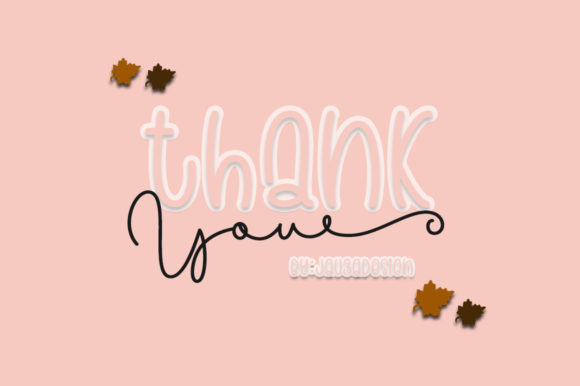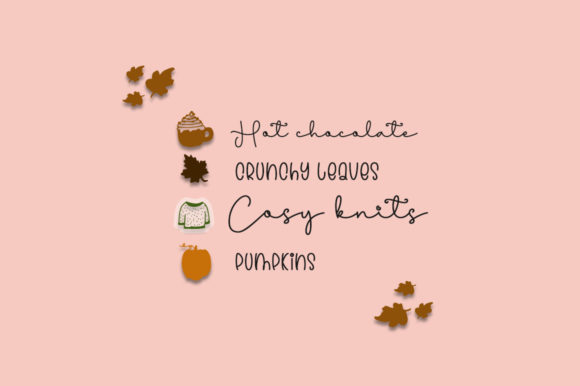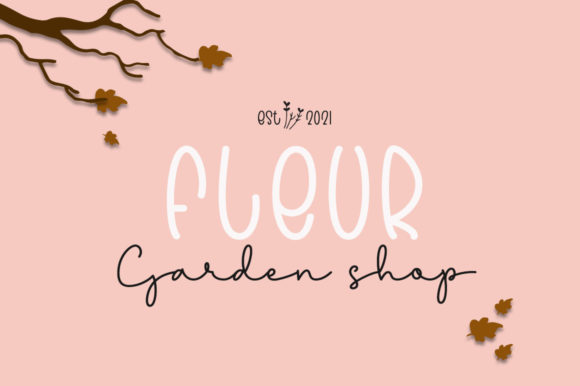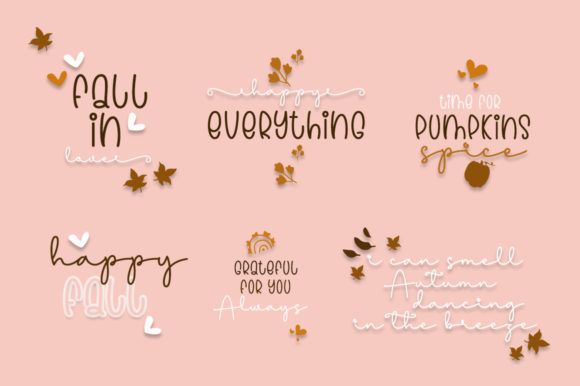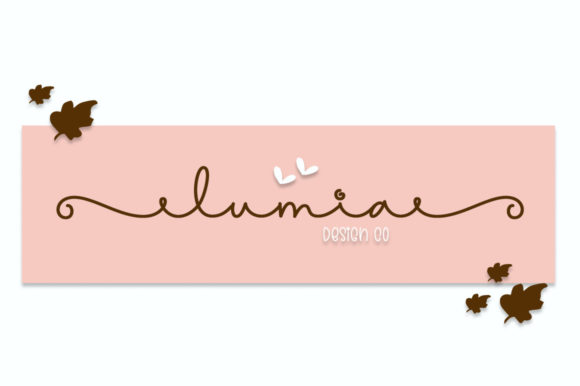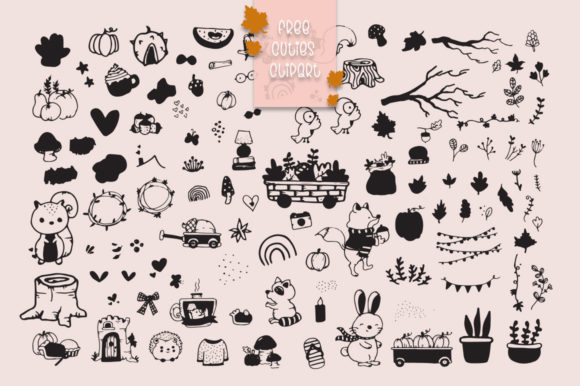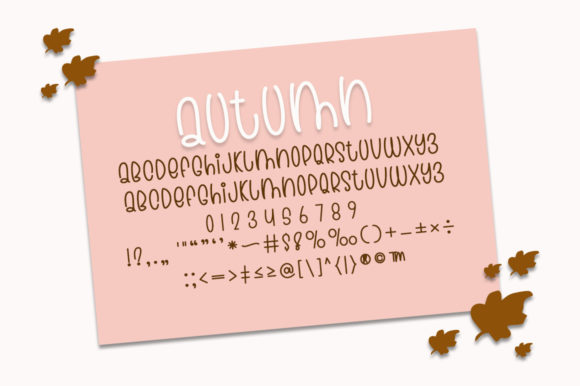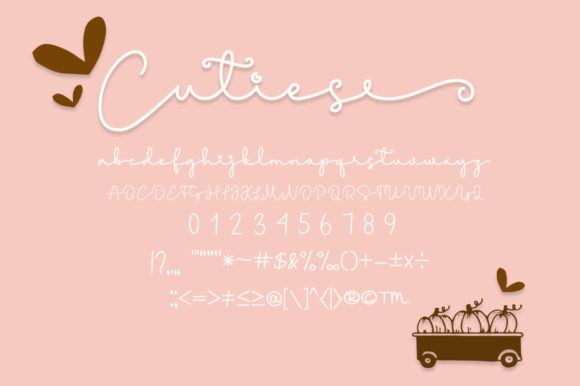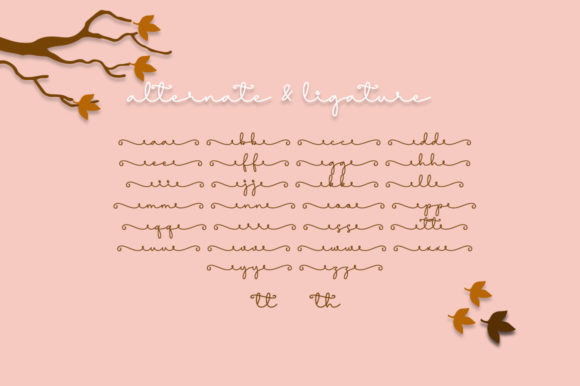
Cuties Autumn Duo Font
About Cuties Autumn Duo Font
Cuties Autumn Duo is a lovely duo font (display and script). This font is PUA encoded which means you can access all of the glyphs and swashes with ease!
Fall in love with its incredibly sweet style and use it to create spectacular designs!